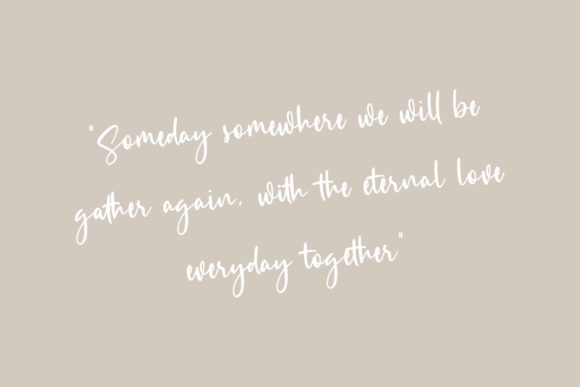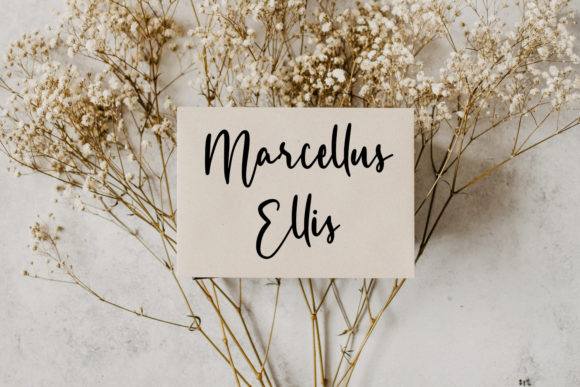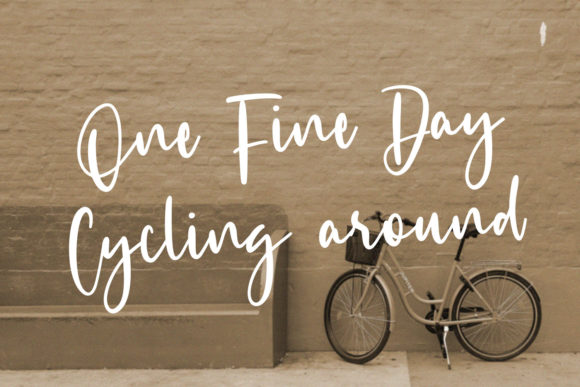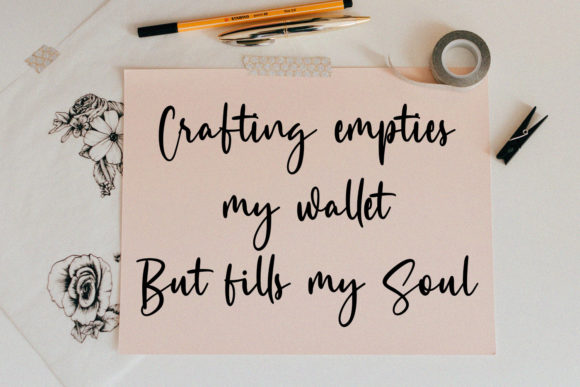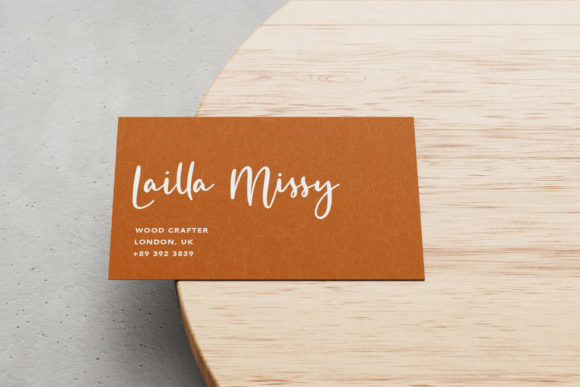
About Monesstry Font
Monesstry is a magical script font carefully created with a touch of elegance. Whether you’re looking for fonts for Instagram or calligraphy scripts for DIY projects, this font will turn any creative idea into a true piece of art!